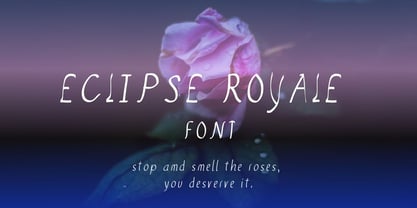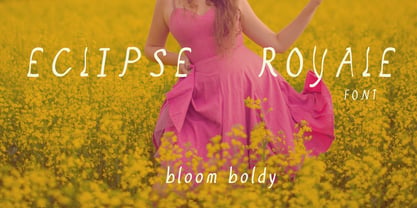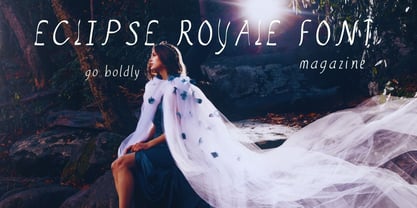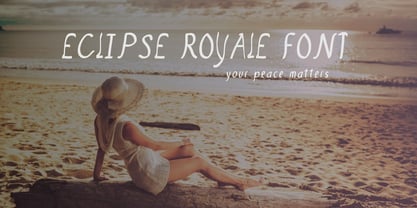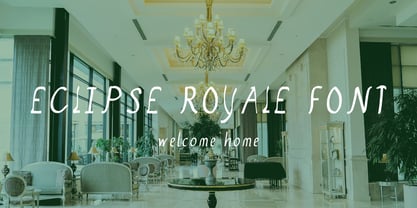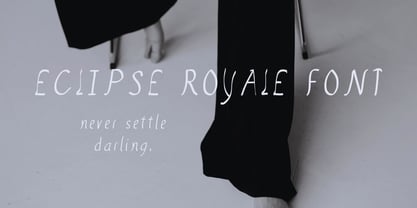
Eclipse Royale
Eclipse Royale is a refined and romantic serif font designed for brands that exude grace, calm, and understated elegance. With its high-contrast curvature and bespoke calligraphic charm, it’s perfect for editorial spreads, luxury campaigns, and design-forward branding that requires both subtlety and strength.
Ideal for:
Bridal editorial spreads
Luxury hotel branding
Spa and wellness campaigns
Premium wedding invitations
Upscale product packaging
High-end fashion magazines
Interior design lookbooks
Each letterform whispers sophistication, making Eclipse Royale the perfect pairing for premium campaigns that want to speak without shouting.